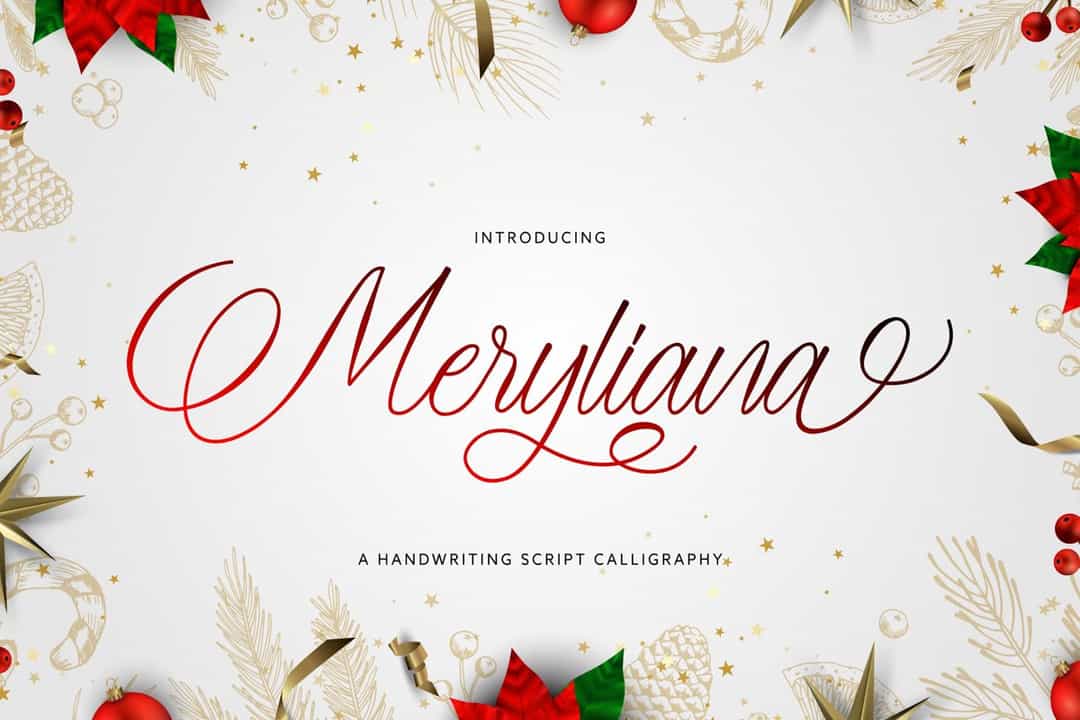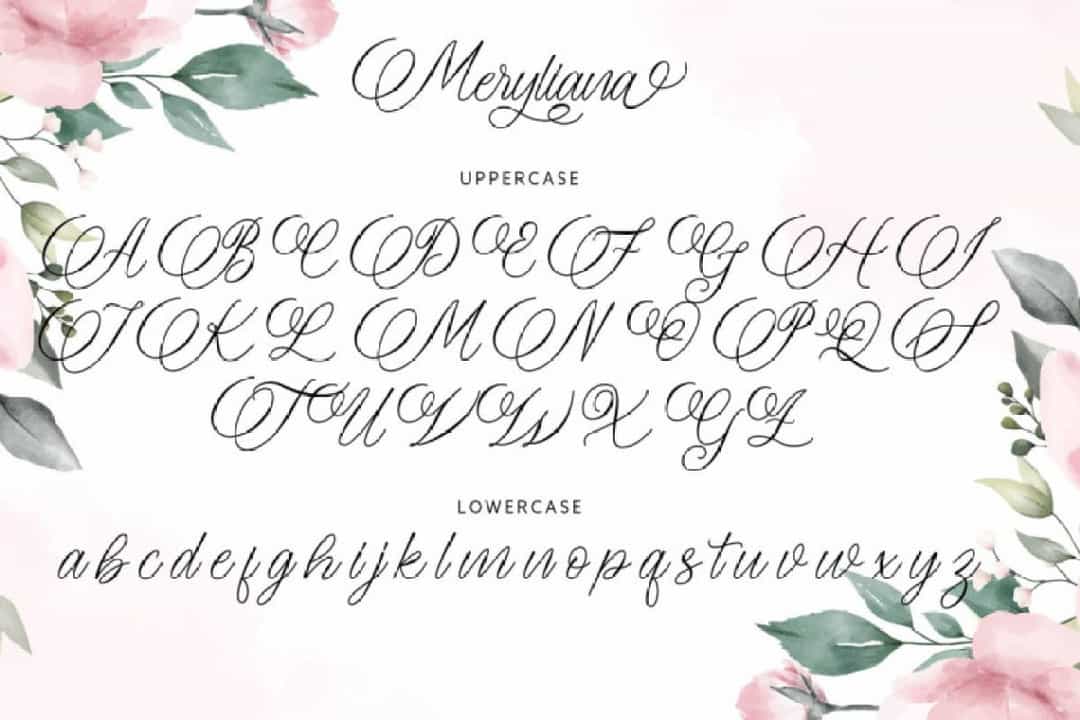
Meryliana Calligraphy Script Font consists of the full alphabet of upper and lower cases as well as swash options, ligatures, different language letters, numbers, punctuation, and Latin-based and Arabic-based scripts.